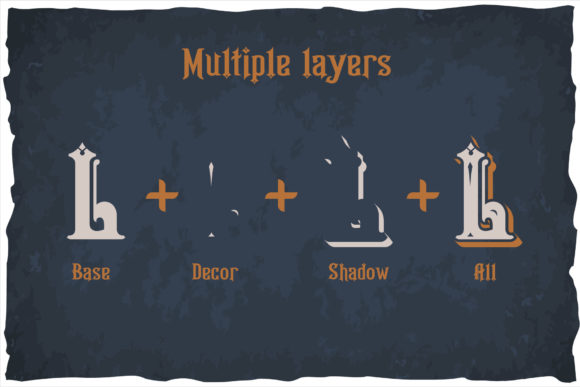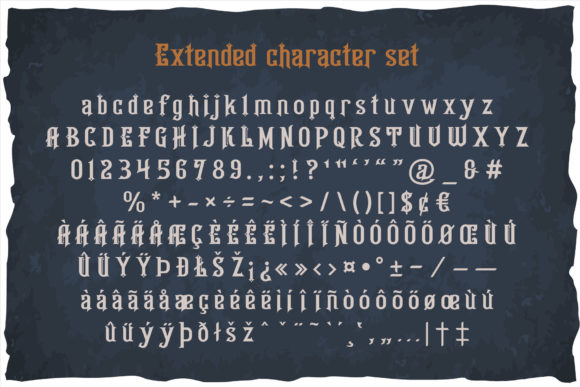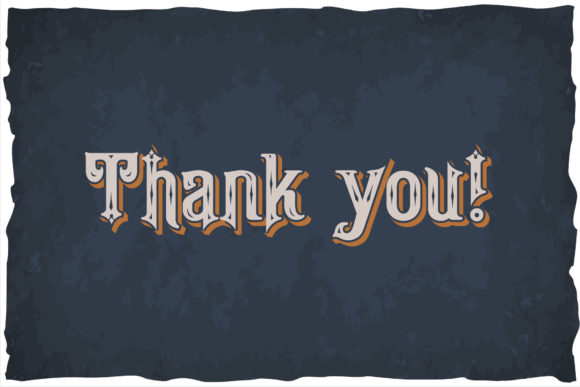
Introduction to Legranta Font
Legranta is an attempt to combine the elegance of vintage fonts with the aggressive message of rock culture.
Key Features of Legranta Font